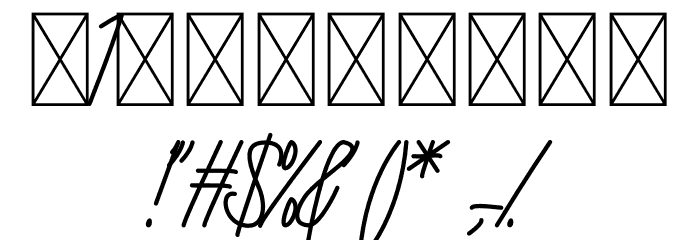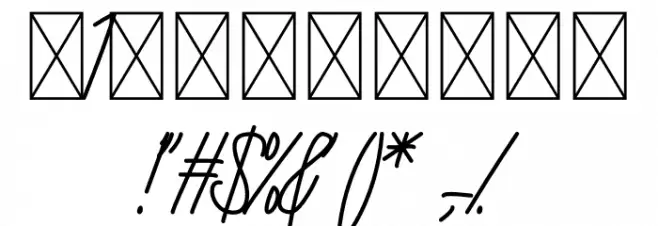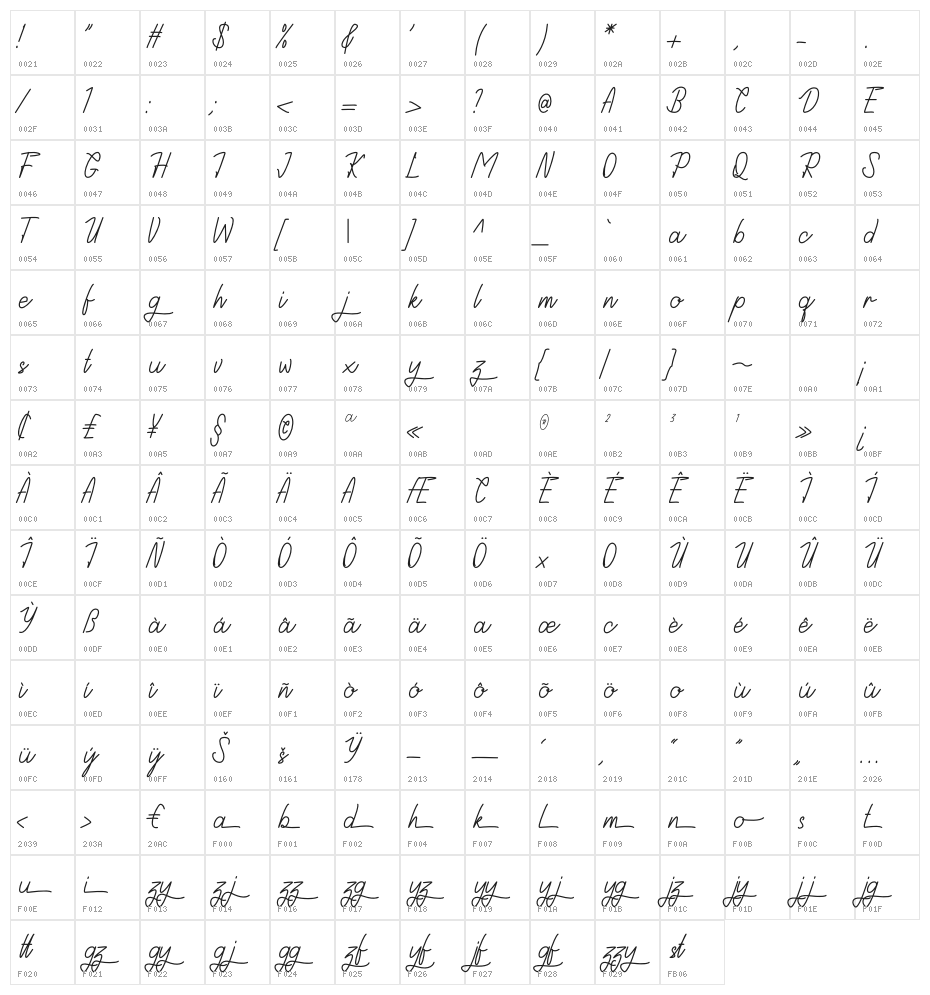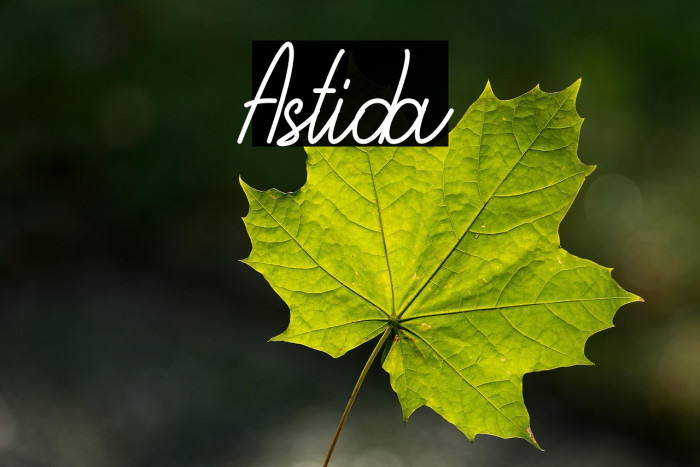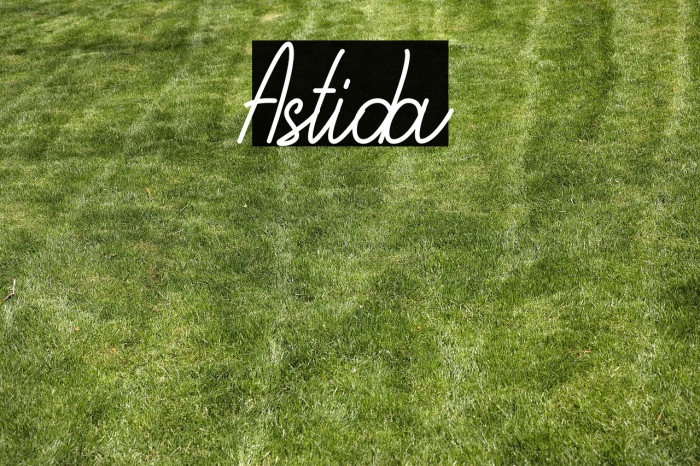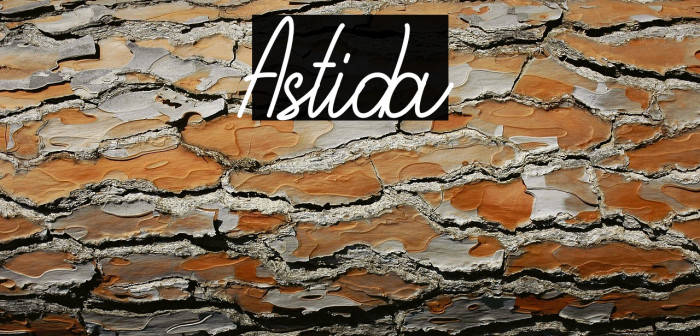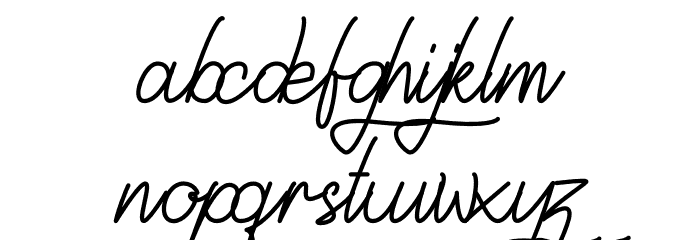
Astida Font
Astida Description
This font exhibits a dynamic and flowing script style, characterized by its elegant and cursive letterforms. The uppercase letters are bold and sweeping, with a sense of movement that suggests a handwritten quality. The lowercase letters maintain this fluidity, with smooth connections between characters, enhancing the overall cohesiveness of the text. The font's strokes are consistent in width, providing a balanced appearance without high contrast. Special characters and numbers follow the same cursive style, integrating seamlessly with the alphabet. This font is ideal for projects that require a personal touch, such as invitations, greeting cards, or branding materials that aim to convey elegance and sophistication.